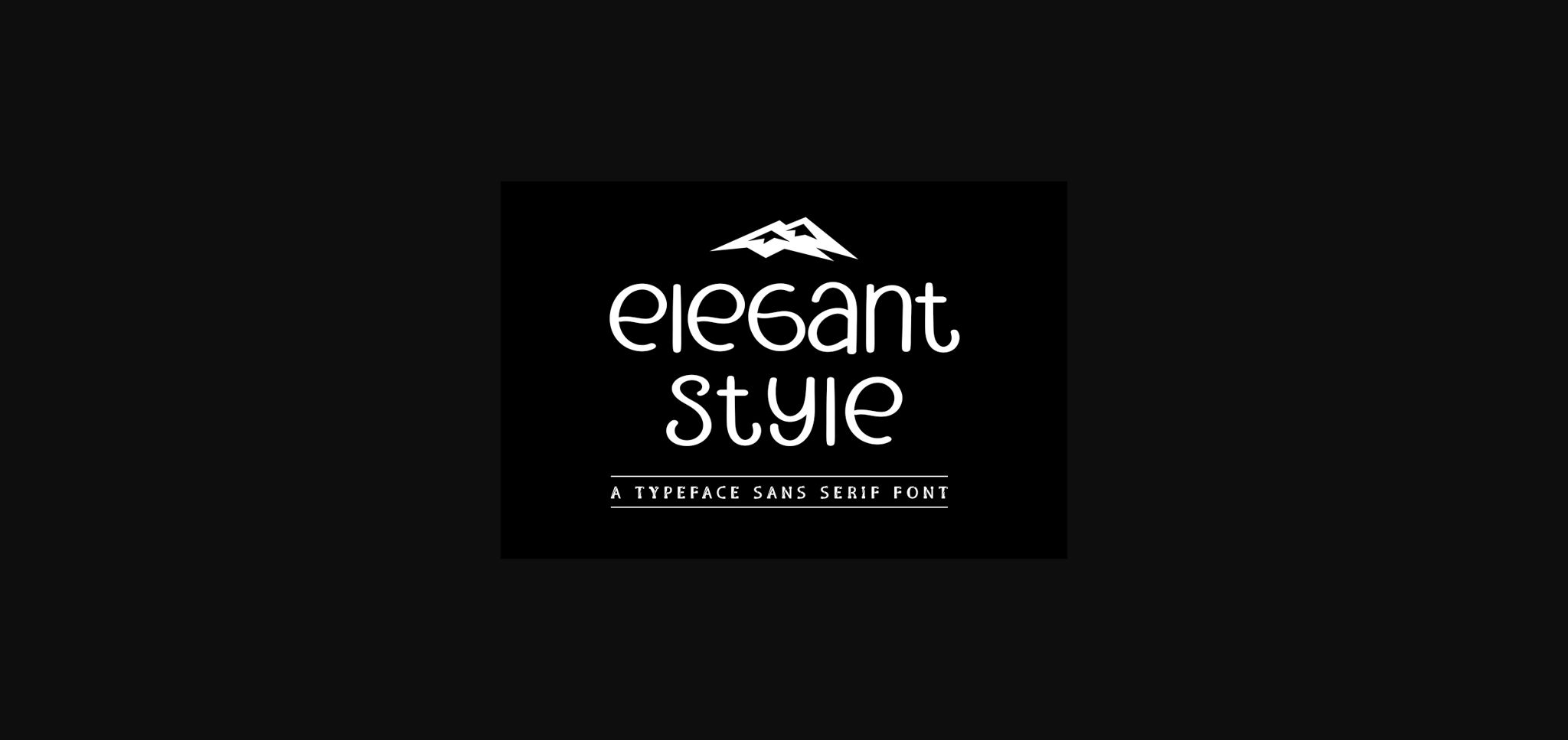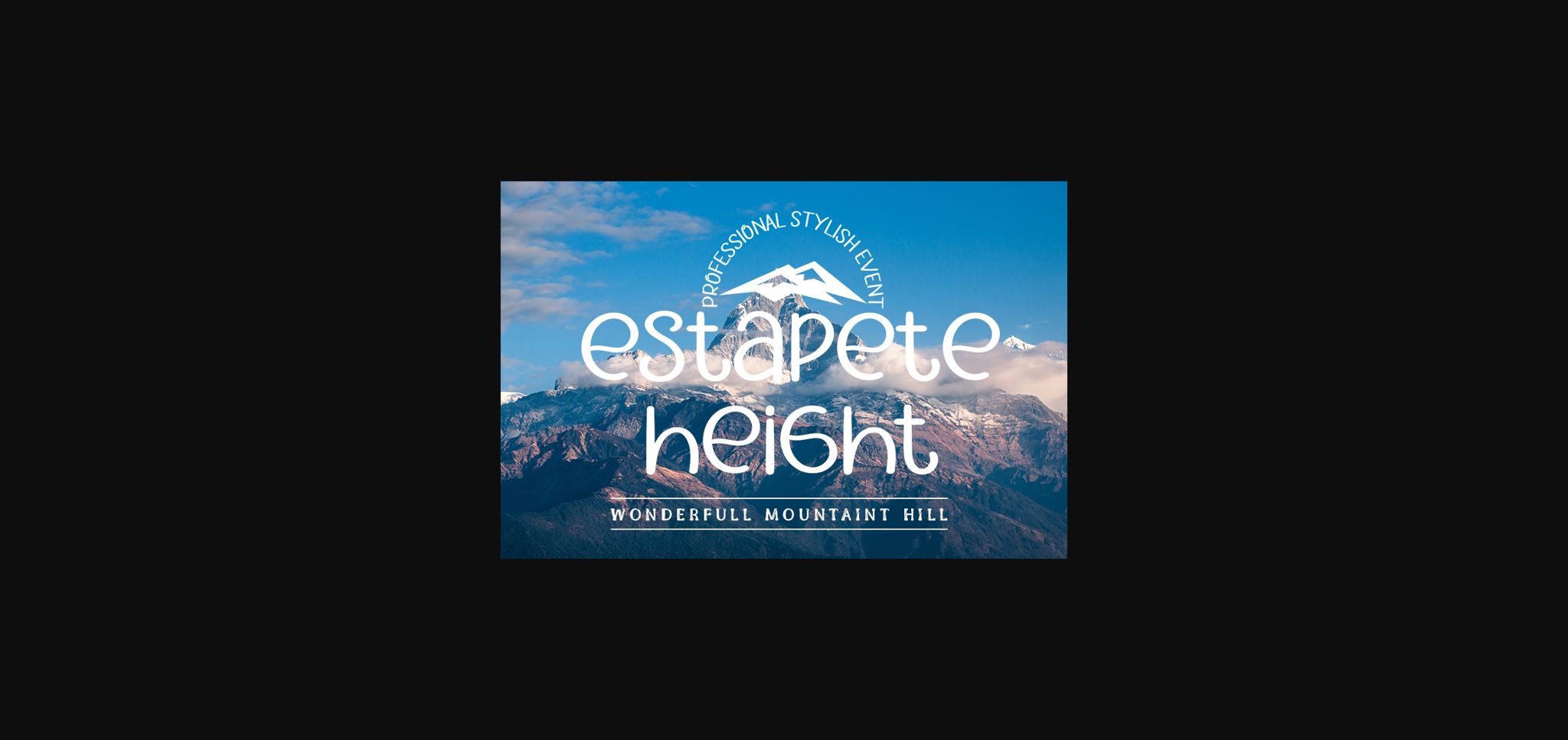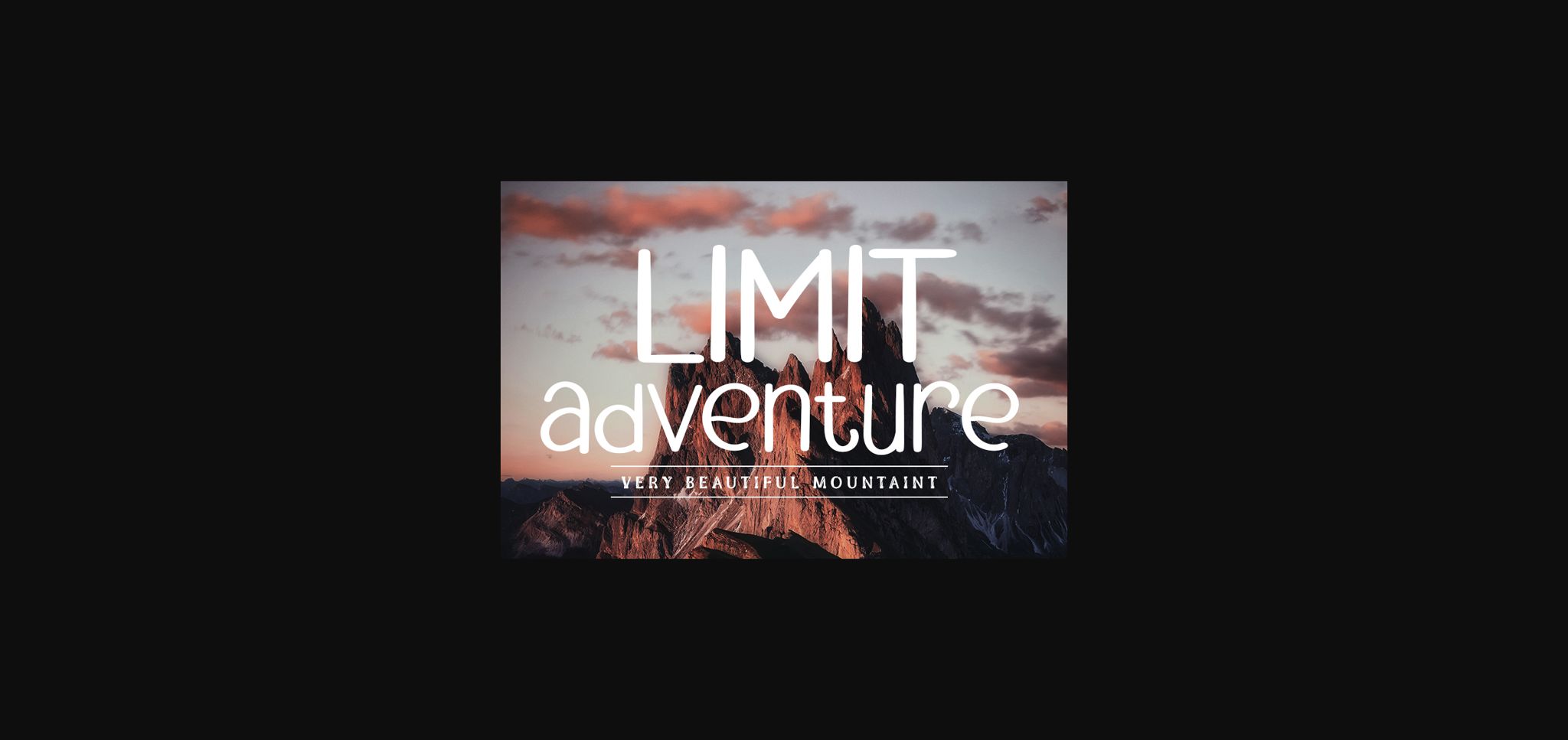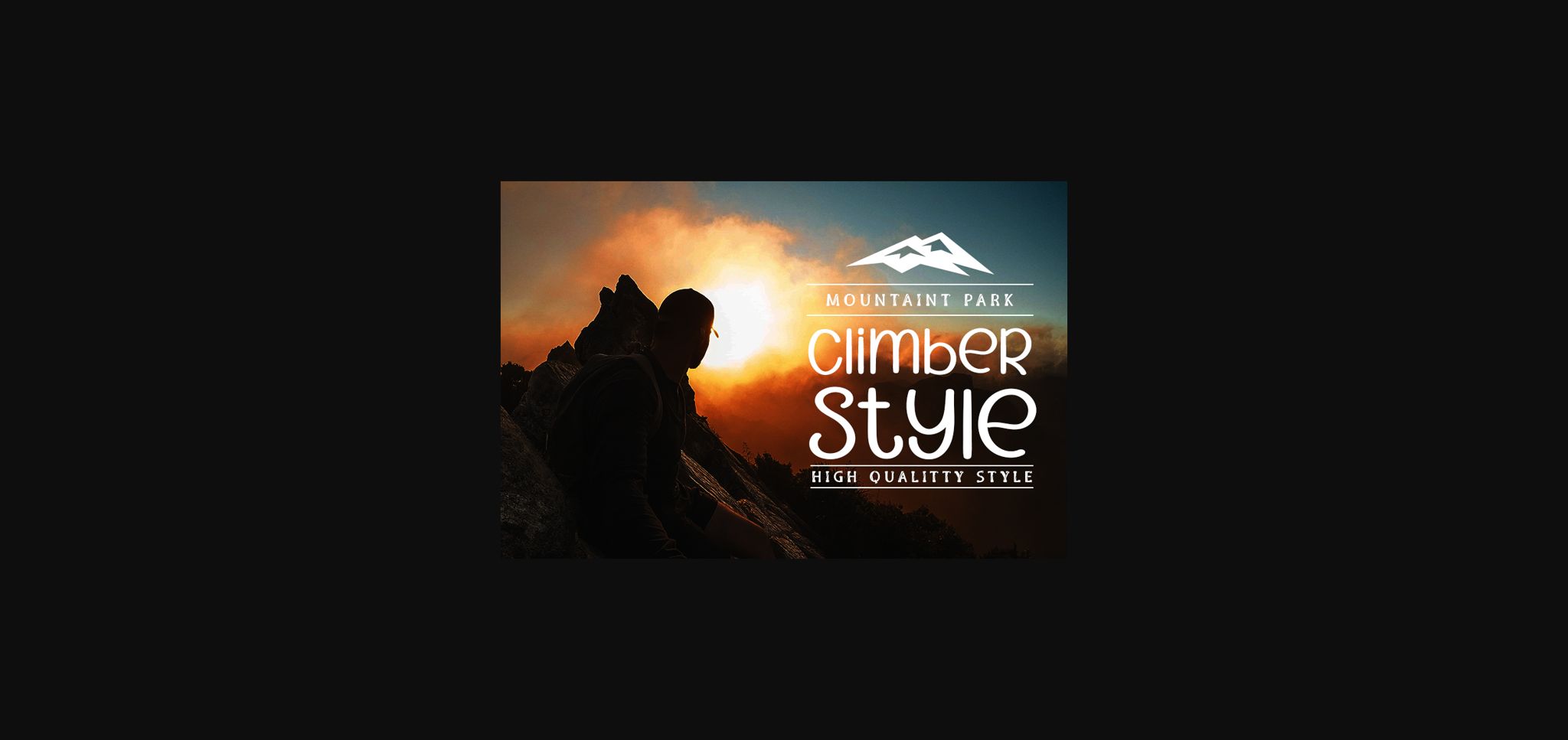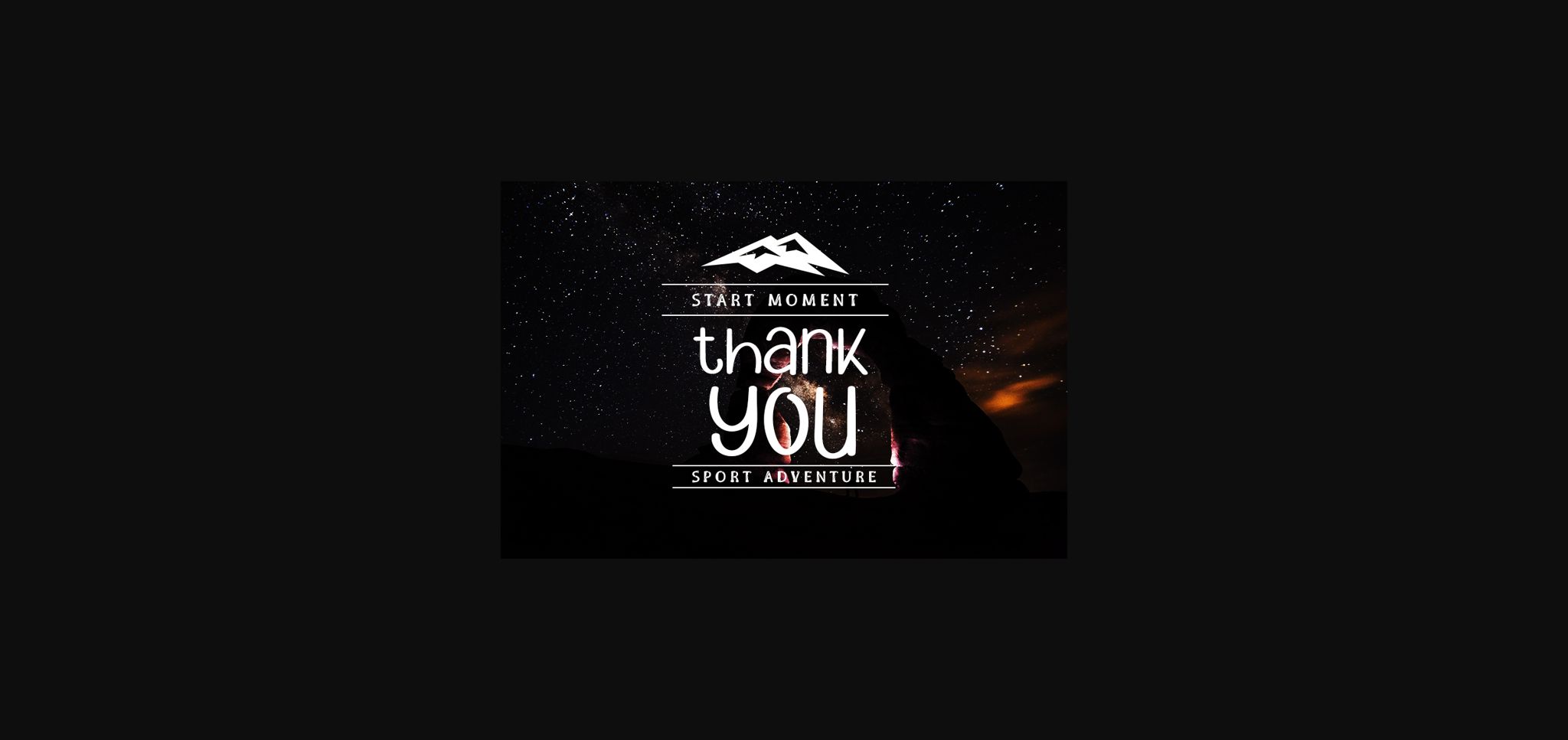
Elegant Style Font
About Elegant Style Font
Elegant Style is a minimal and neat sans serif font. It can easily be matched to an incredibly large set of projects, so add it to your creative ideas and notice how it makes them stand out!